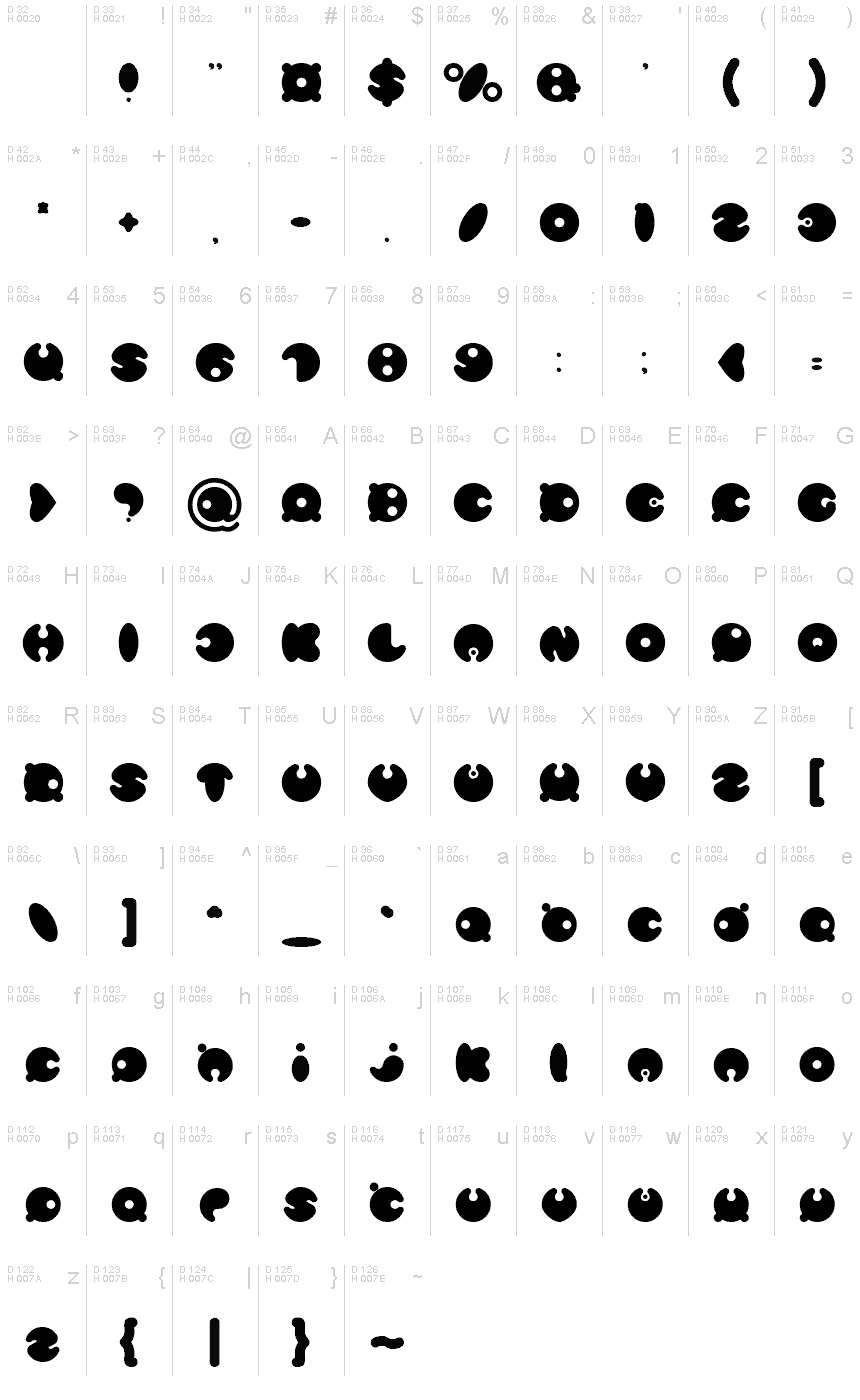
MASTER PANDA
A captivating display font, Master Panda by Weknow exudes a groovy, bold, and expanded charm. Brimming with personality, this distinctive typeface showcases intricate, whimsical details that command attention.
The font's bold, expressive strokes and unconventional character shapes lend it a truly unique aesthetic. Its expansive width and dynamic appearance make Master Panda an eye-catching choice for headlines, logos, and attention-grabbing designs.
Suitable for a wide range of creative applications, from retro-inspired branding to modern editorial layouts, Master Panda's versatility shines. This font's captivating style effortlessly elevates any project, infusing it with a touch of playful sophistication.